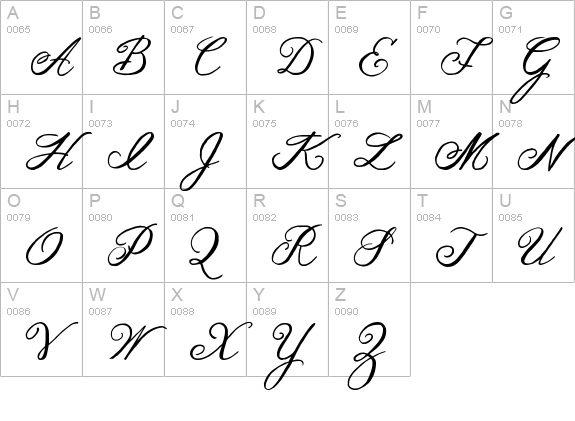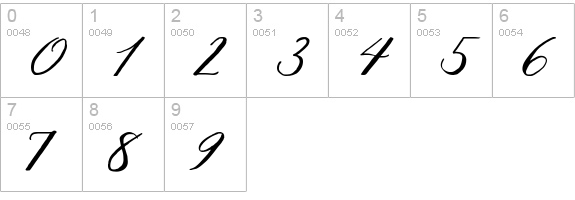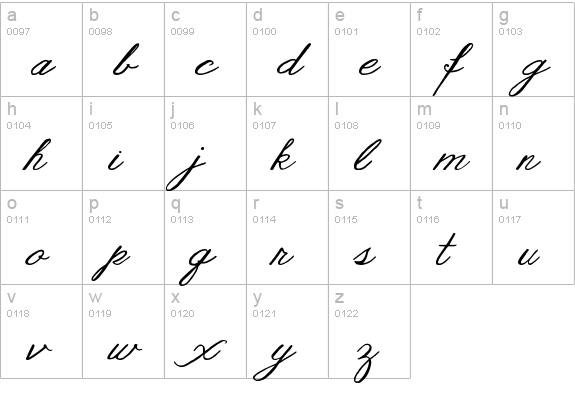
Janda As Long As You Love Me Font Details
Introducing Janda As Long As You Love Me font, a beautifully crafted typeface that encapsulates the essence of love and romance. With its flowing and elegant letterforms, this font exudes a sense of warmth and tenderness, making it perfect for any project that desires a touch of affection. Janda As Long As You Love Me font is a versatile choice that can be used in a variety of design applications. Whether it's for wedding invitations, greeting cards, or even personal love letters, this font adds a touch of romance and charm to any text. One of the best aspects of Janda As Long As You Love Me font is that it is available for free. Yes, you read that right! This stunning typeface can be freely downloaded at FontsMarket.com, allowing you to add a touch of love to your designs without any cost. So why wait? Download Janda As Long As You Love Me font today and let it capture the hearts of your audience. With its graceful curves and timeless appeal, this font is sure to elevate your designs and create a lasting impression. Don't miss out on the opportunity to add a dash of romance to your projects, all while enjoying the convenience of a freely available font.